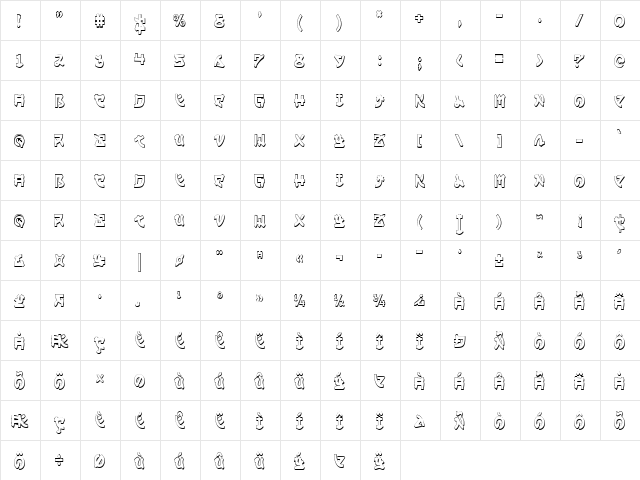
Yama Moto Condensed 3D Condensed
Design Context for Yama Moto Condensed 3D Typeface
Yama Moto Condensed 3D is a composed and adaptable typeface that performs quietly and consistently across a wide range of design contexts. The condensed width makes it efficient for tight spaces without sacrificing legibility.